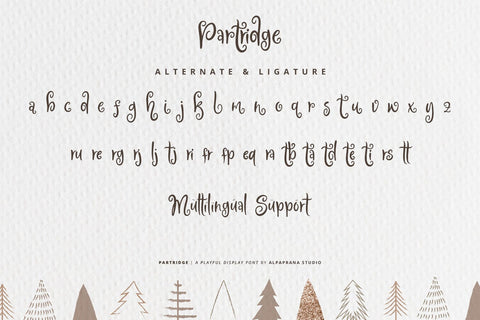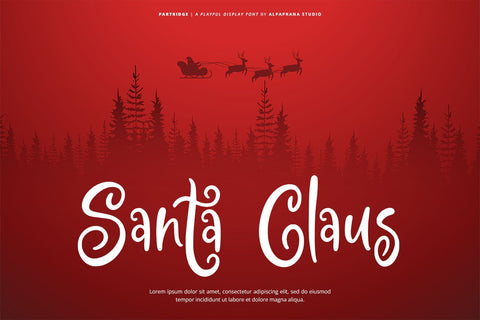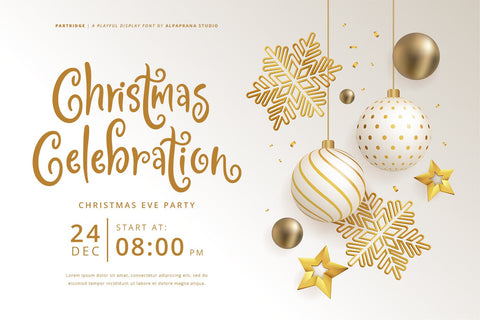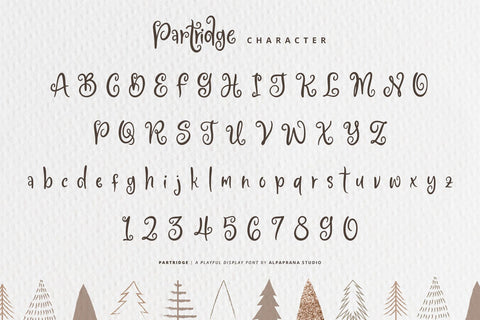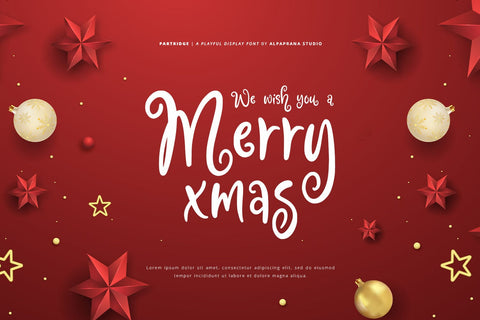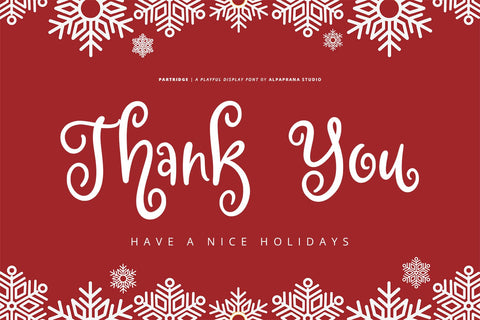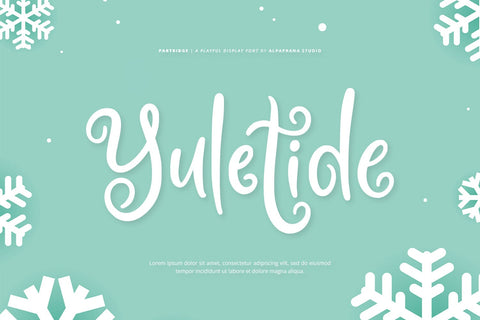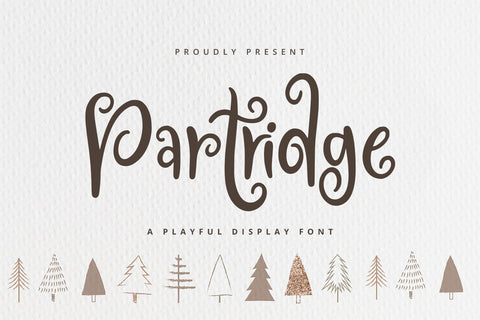
Partridge - Playful Font
Partridge is a playful display font with cute and modern style. It will be perfectly used for Branding, Logo Design, Lettering, Logotype, Clothing, Poster, magazine, packaging, posters, shopping bags, t-shirts, book covers, photography, special events and other design project.